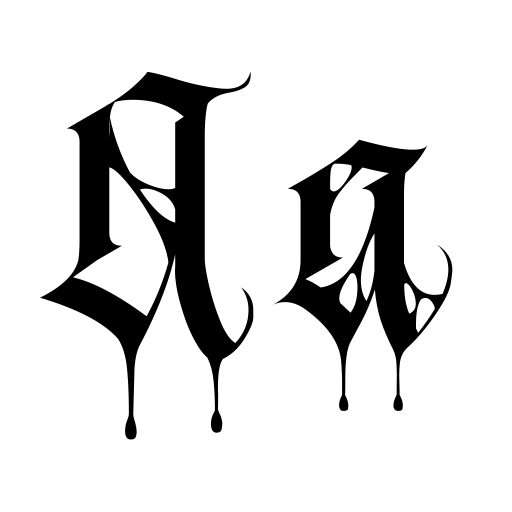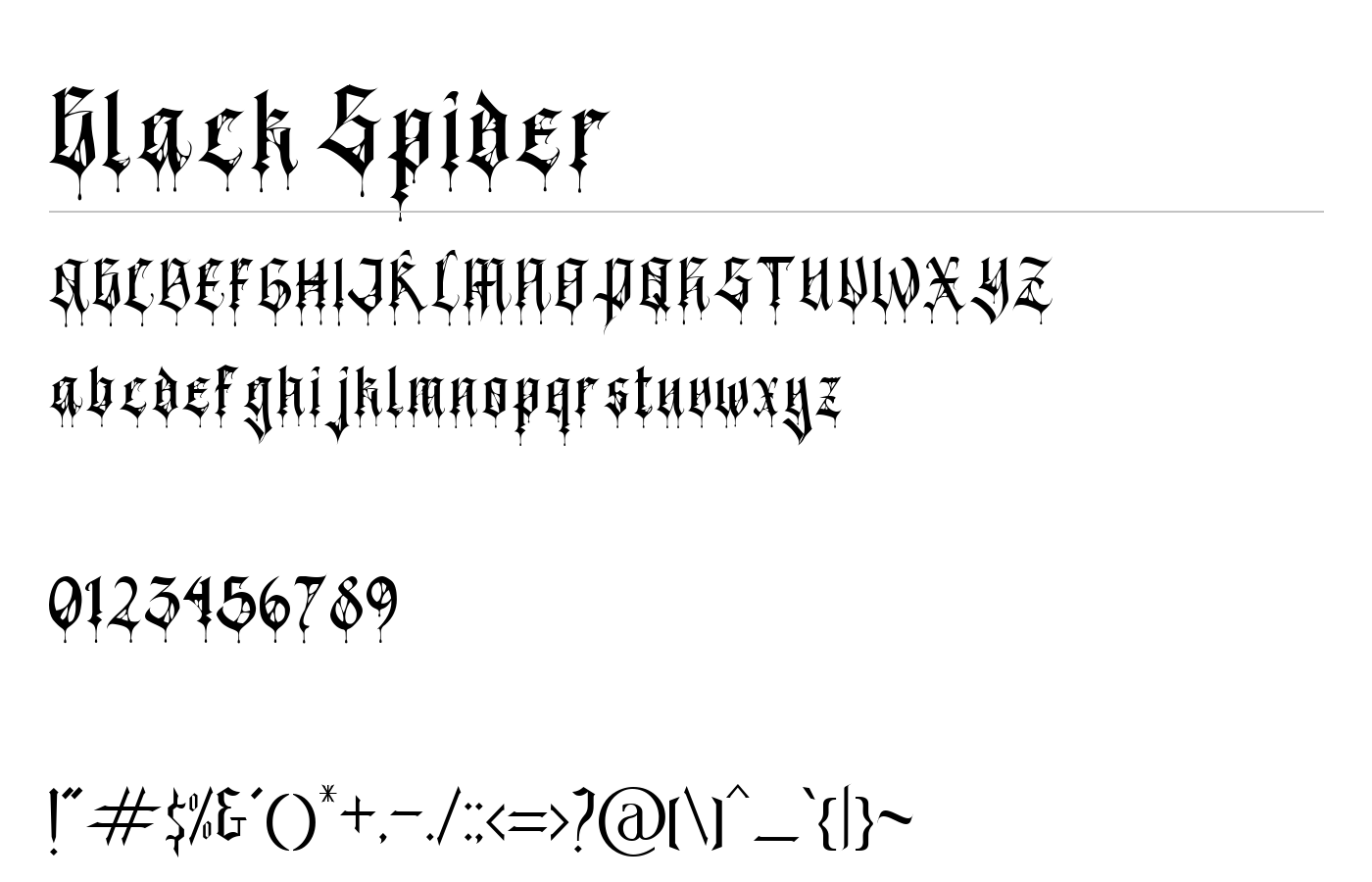
Black Spider is a bold, gothic blackletter font with sharp, dramatic strokes and dripping details that create a dark, edgy atmosphere. Its condensed letterforms and high contrast between thick and thin lines give it a striking, intense look perfect for horror-themed, heavy metal, or Halloween designs that need a strong, haunting personality. This font works best in headlines, logos, and posters where its unique style can command attention and set a moody tone.
Black Spider Font
About Black Spider Font
| Font family | Black Spider Font |